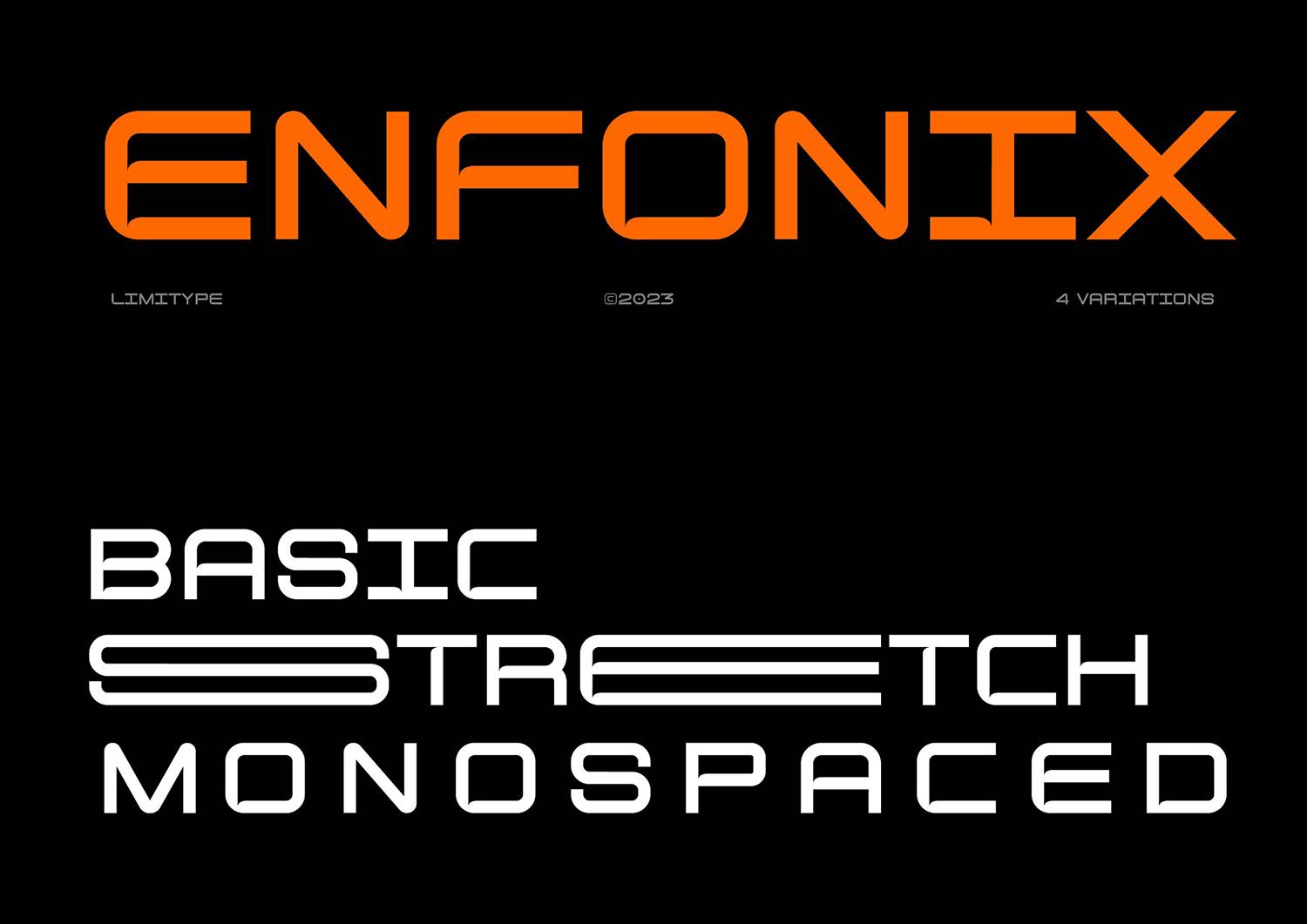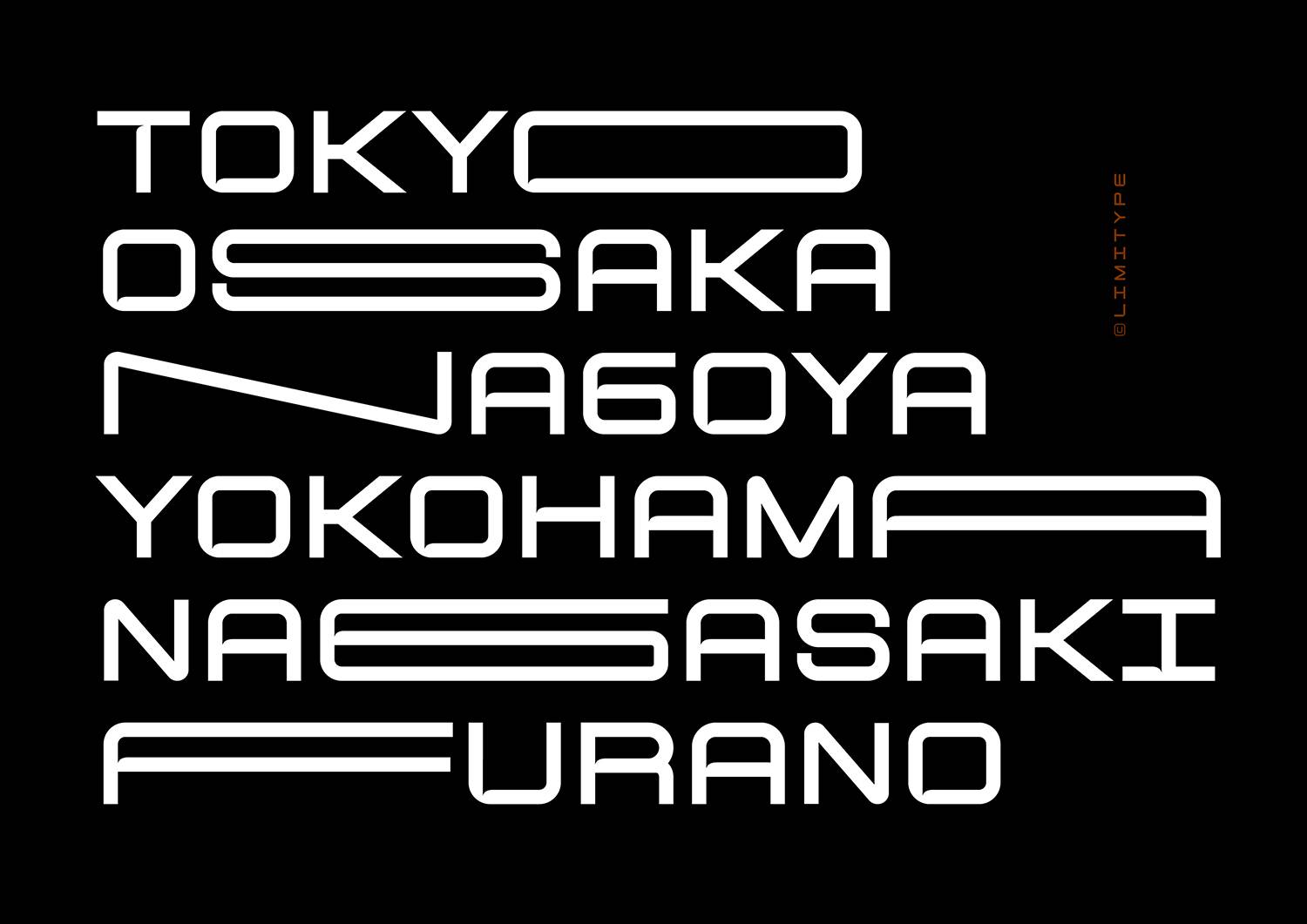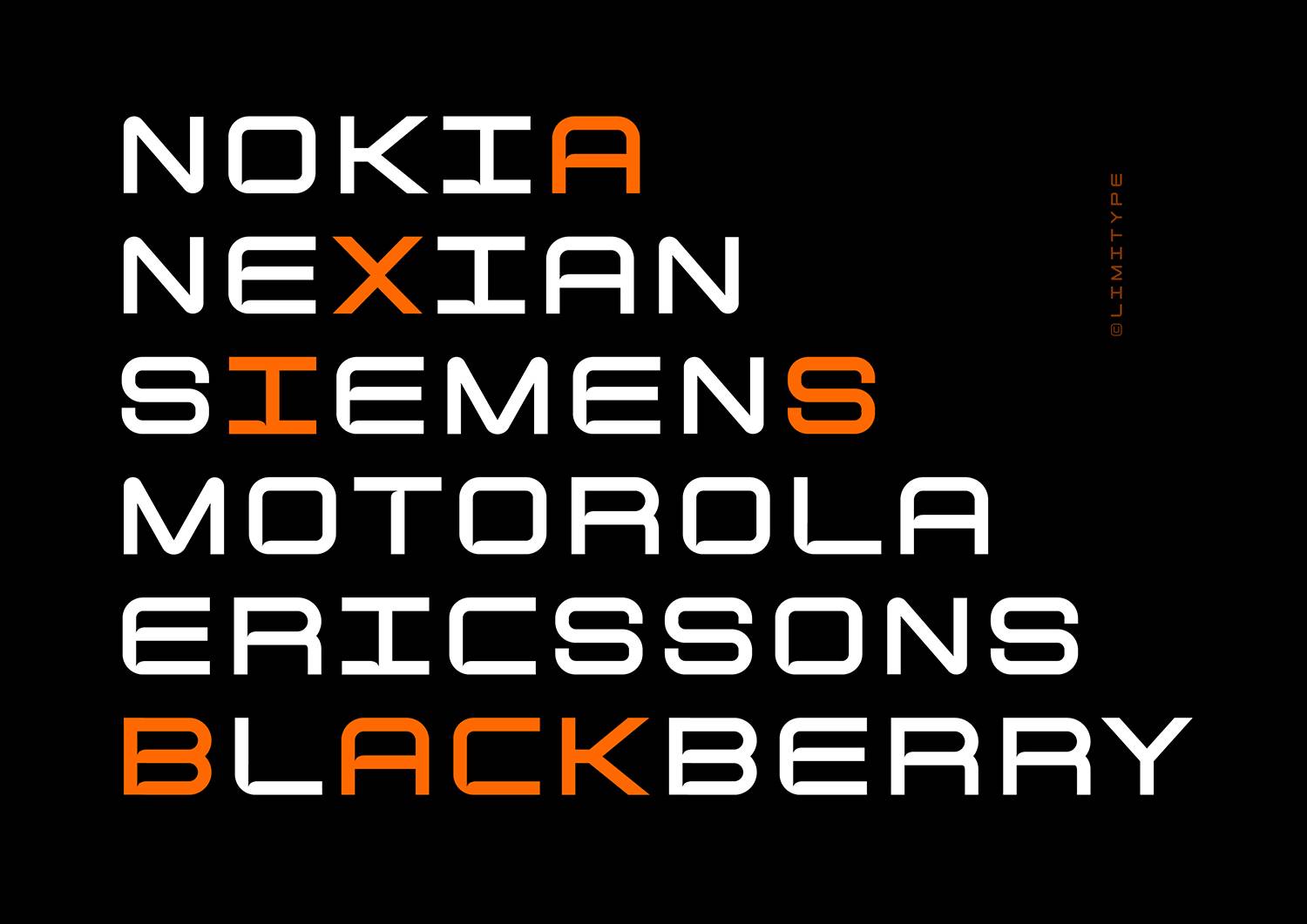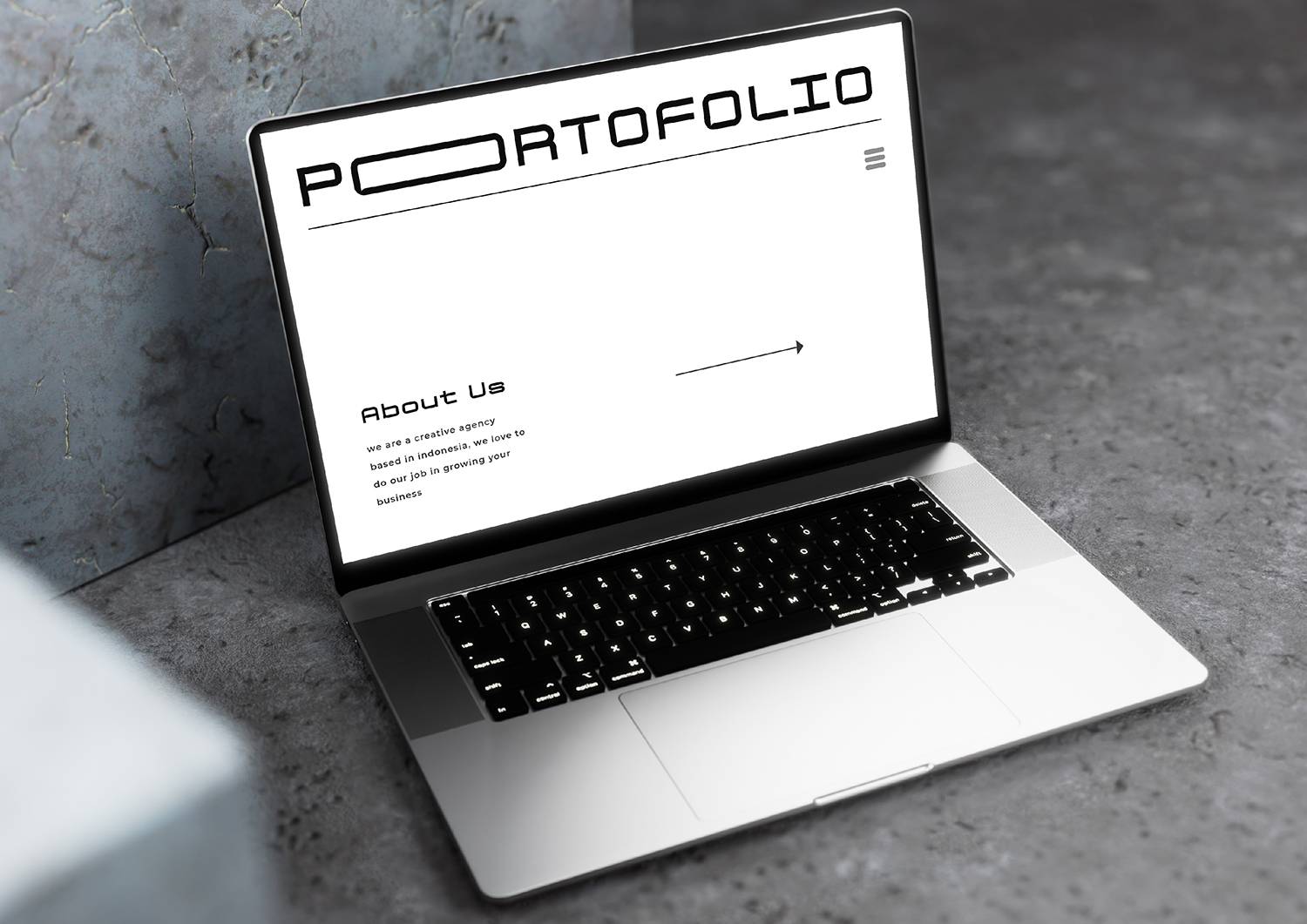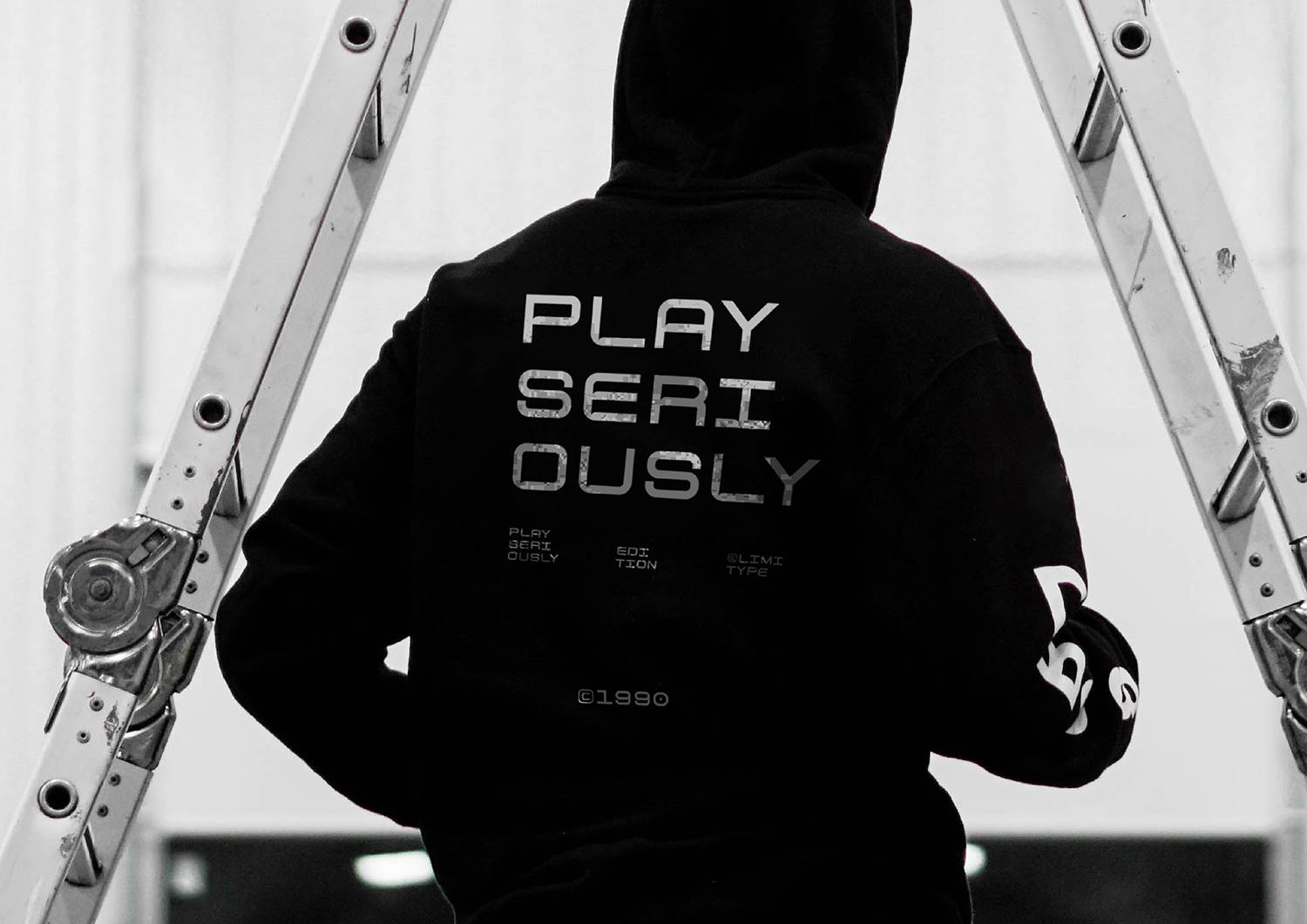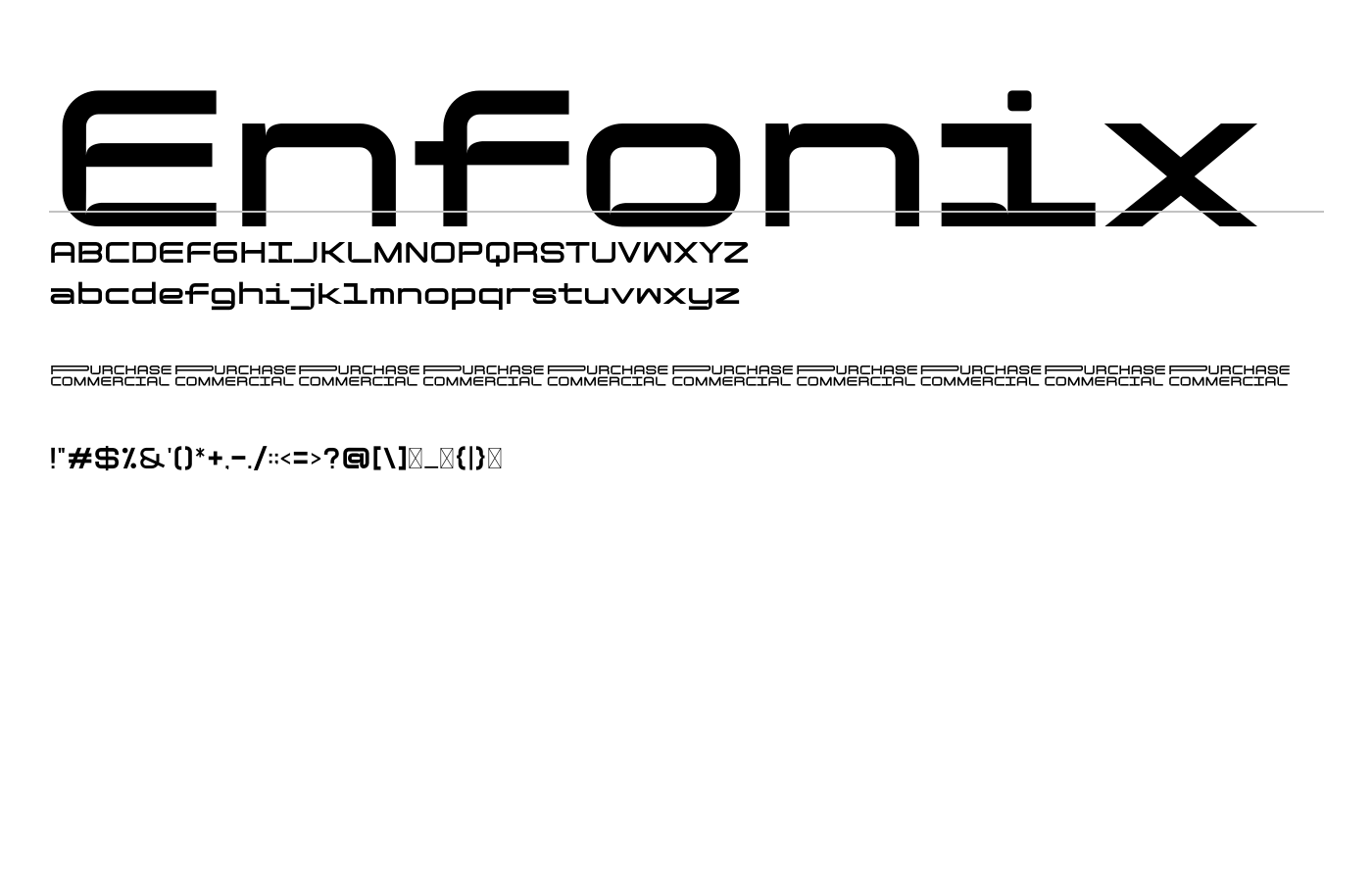
Enfonix is a modern, futuristic sans serif font featuring clean, geometric letterforms with a technical, almost sci-fi feel. Its uniform weight, squared curves, and tight spacing create a sleek, contemporary look that works perfectly for technology, gaming, and digital branding projects. This font stands out in logos, headlines, and editorial design where a strong, innovative style is desired.
Enfonix Font
About Enfonix Font